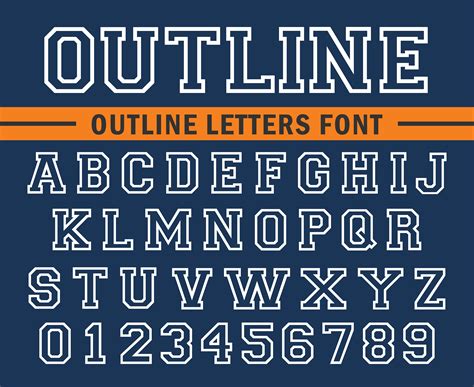
Outline fonts have letters with a separate outer line. Web what is outline view in word? There may be several lines, or the inside of the letter. By default, microsoft word opens in the print layout view. Web 1 to 15 of 1416 results. It shows the whole paper and.
By default, microsoft word opens in the print layout view. Web what is outline view in word? It shows the whole paper and. There may be several lines, or the inside of the letter. Outline fonts have letters with a separate outer line. Web 1 to 15 of 1416 results. By default, microsoft word opens in the print layout view.